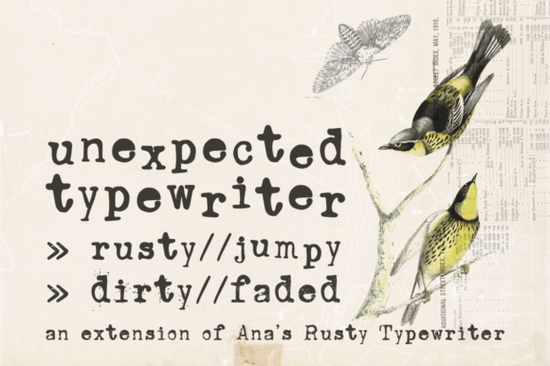
If you've been searching for a typewriter font that doesn't look too clean or polished, Unexpected Typewriter might be exactly what you need. It's a hand-drawn serif font inspired by an old Underwood typewriter, and it comes with several variations that each bring a different level of grit and character. Whether you're designing zines, branding materials, or vintage-style prints, this font family gives you that worn, imperfect look that's hard to fake with filters alone.
What Comes in the Unexpected Typewriter Font Family?
This isn't just a single font file. The Unexpected Typewriter family is built on Ana's Rusty Typewriter and includes three distinct variations:
- Jumpy Typewriter – simulates the uneven ink transfer of a real typewriter, where letters shift slightly and land at different heights. It uses contextual alternates (OpenType feature) to create this effect automatically.
- Dirty Typewriter – adds ink smudges and residue around the characters, giving text a grungy, well-used feel.
- Faded Typewriter – mimics worn-out ribbon ink, producing that faded, barely-there look common on old documents.
Each variation serves a different purpose, and mixing them in a single project can create a realistic layered effect like pages typed on a machine that's seen better days.
What Software Works with the Jumpy Typewriter Variation?
This is an important detail. The Jumpy Typewriter font relies on the contextual alternates OpenType feature. Not every design program supports this. Here's a quick breakdown:
- Adobe Illustrator, InDesign, Photoshop – all support contextual alternates well.
- Affinity Designer and Affinity Publisher – also handle this feature.
- Canva, basic online editors – may not support contextual alternates, so the Jumpy effect won't render properly.
- Cricut Design Space and Silhouette Studio – limited OpenType support; test before committing to a large project.
If your software doesn't support contextual alternates, the Dirty and Faded variations still work great as standalone fonts with no special features required.
What Projects Is This Typewriter Font Good For?
Typewriter fonts with a worn aesthetic fit a surprisingly wide range of creative work. Here are some practical uses:
- Print-on-demand products – quotes on mugs, tote bags, and posters with a retro or literary feel.
- Zine and journal design – especially for DIY, punk, or indie aesthetics.
- Wedding and event stationery – pairs beautifully with elegant serif fonts like the Bride font for a vintage-meets-formal contrast.
- Brand identity – coffee shops, bookstores, and record labels often want that nostalgic, handcrafted look.
- Social media graphics – typewriter text stands out in a feed full of sleek, modern typefaces.
- Book covers and chapter headings – especially for thriller, mystery, or historical fiction genres.
How Does It Compare to Other Serif Fonts?
Unexpected Typewriter sits in a specific niche it's not a clean, modern serif. If you need something more polished for body text or elegant headings, consider pairing it with fonts like Afterglow for a softer serif option, or Cloudy Aurora if you want something more whimsical. For bold display work, Mosca Laroke offers a strong serif presence that complements typewriter textures nicely.
The real strength of Unexpected Typewriter is its imperfection. It looks like actual typed text, not a digital recreation of one. That subtle difference matters when you're going for authenticity.
Tips for Getting the Best Results
- Use it at medium to large sizes. The texture details ink splatters, uneven edges get lost at very small point sizes.
- Stick to dark text on light backgrounds for maximum readability and visual impact.
- Layer the variations. Use Dirty for headlines and Faded for supporting text to create depth and visual interest.
- Pair with clean sans-serifs or script fonts to keep your design balanced and readable.
Quick Checklist Before You Buy
- ✅ Confirm your design software supports contextual alternates if you plan to use the Jumpy variation
- ✅ Consider which variation (Jumpy, Dirty, Faded) best fits your project
- ✅ Test at the size you'll actually use typewriter fonts behave differently at 12pt vs. 72pt
- ✅ Think about pairing fonts a clean companion font will make the typewriter texture pop